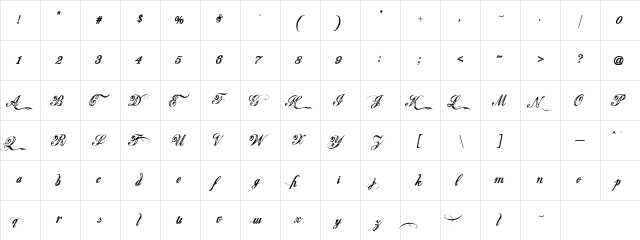
Justice by Dirt2 Regular
Design Context for Justice by Dirt2 Typeface
Justice by Dirt2 is a composed and adaptable typeface that performs quietly and consistently across a wide range of design contexts.